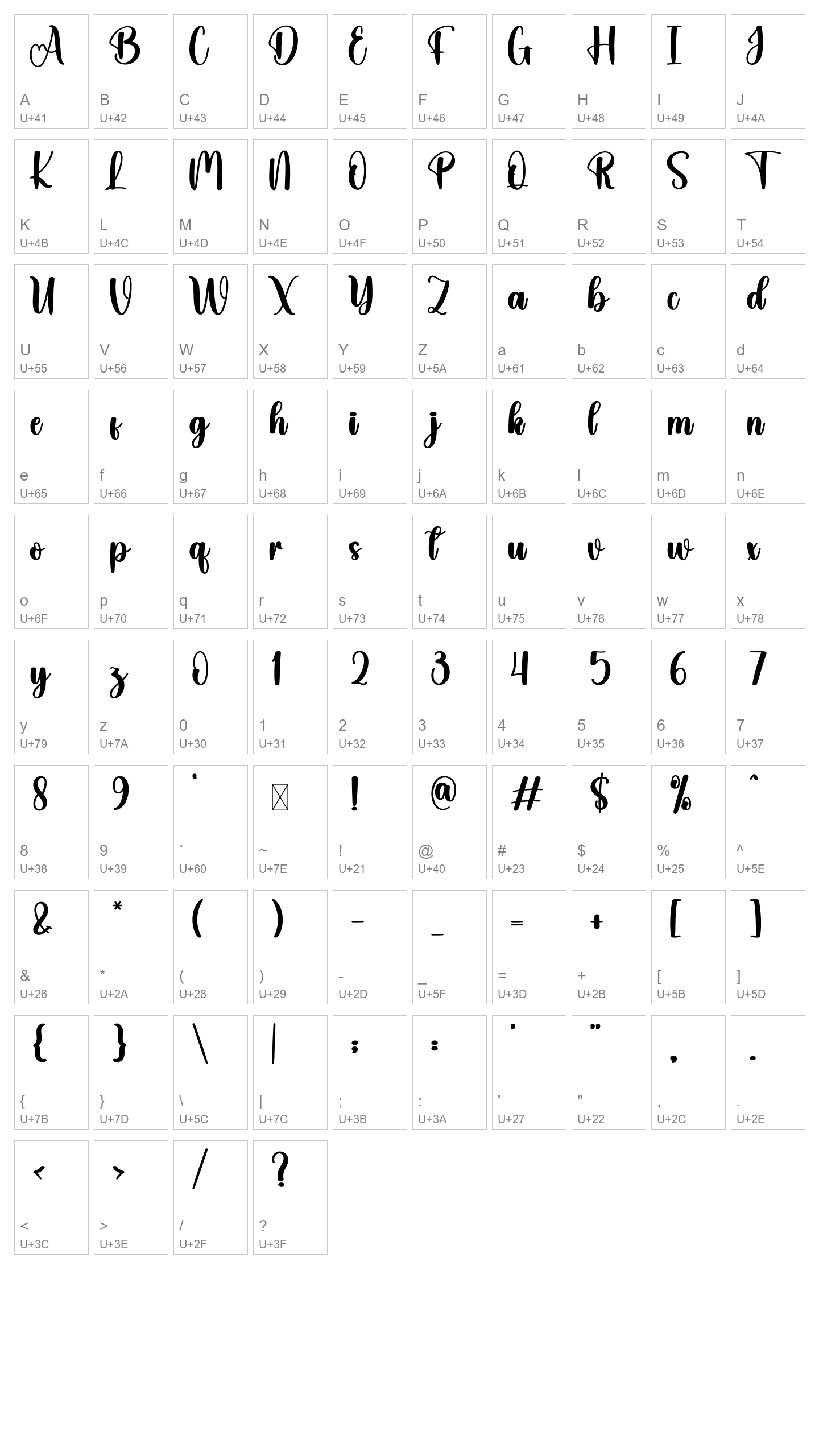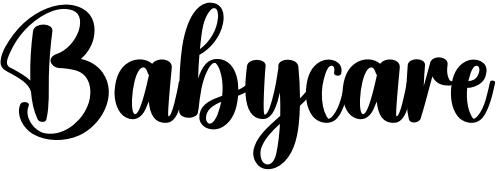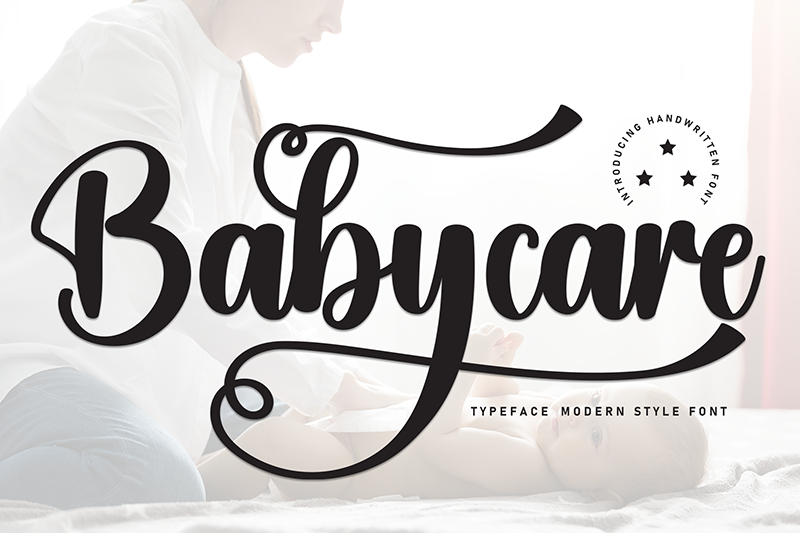
Babycare
special creative products for you, our products will give you an extraordinary experience.
the latest style letters are perfect for wall displays, wedding invitations, social media post logos,
advertisements, product packaging, product designs, labels, photography, watermarks, invitations, stationery,
and any project that requires taste handwriting.